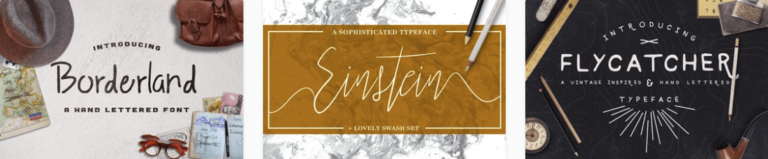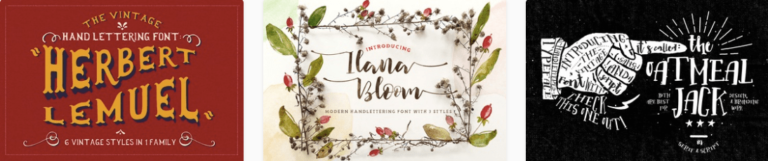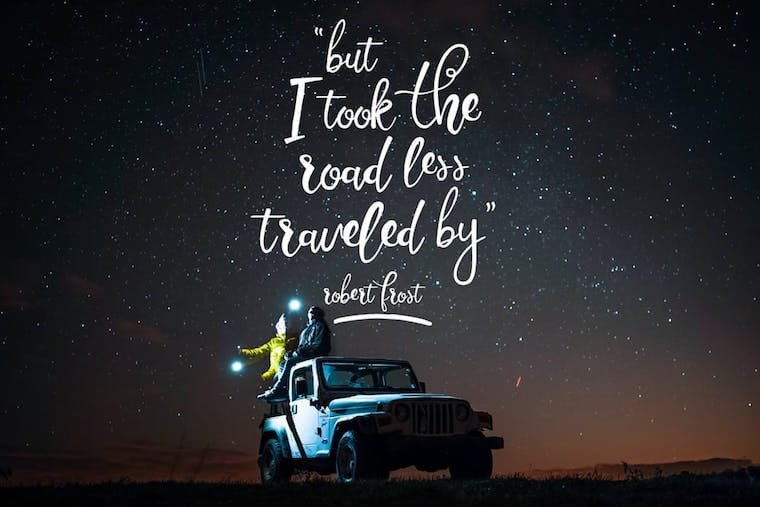
Designers Pick Their Favorite Handwritten Fonts
Check out some of the favorite handwritten fonts among our designers on Envato Elements.
We asked two designers to select their favourite handwritten fonts.
Deasy, a designer who creates fonts as August10 on Elements, has been working as a designer for 8 years. In her early years, she worked for several agencies that she began to realize, working there had taken lots of her, most of all: time. She tried to find a better career opportunity where she could have her freedom but still, able to create design or at least in design path.
Being a contributor for Envato, she is able to make all sorts of good-looking designs that are used by many customers around the world (and finally, she has lots of time!). Not only that, she also notices that font design has become one of the most popular things. For her, it’s good to know that her “handwriting” can be used as an element to create something bigger. From that moment on, she continues making font that so far she has 28 fonts & still counting.
Here’s what Deasy had to say about their favorite styles across Envato Elements:
“I like script fonts because they are original and it’s purely handmade (of course, after finish drawing, we computerize it). Of all 20 pages of script font in Envato Elements, there are some I like because of varied reasons.
I have to admit that these are well executed, both the fonts and the presentation! As a designer, these fonts (along with their preview images) do give me inspiration in making new fonts; not to make the same ones, but to make a new one based on the style.
But as a user, looking at these fonts I imagine there are tons of things I can make. Many of them comes with features such as Bite Chalk. There are several fonts in 1 family that I can combine to create this and that. Many of them, too, comes with brush stroke and or texture that will make my works look natural (it’s as if I make the writing by my hand, instead of some computer font). Actually, these are the things that I’m looking for whenever I look for fonts to create design.
One last thing is the presentation. These designers made some great works by making a themed preview, such as: Little Wonder, Asphalts and Carosello. They have the color consistency and images that match each other which give a strong impression to the fonts themselves (and makes me want to download them!).”
1. Little Wonder
Little Wonder font
simonok
2. Asphalts
Asphalts Typeface
TheBrandedQuotes
3. Parlour & Bite Chalk
Parlour Sans
hustlesupplyco
BiteChalk Typeface + extras
jiwstudio
4. Carosello
Carosello
UnioCS
5. Experiment
Experiment Brush Script
dhanstudio
6. Rainy Days & Dreamlight
Rainy Days – a Playful typeface
AnnaIvanir
Dreamlight Script
queentype
7. Boomshell
Boomshell Brush Font
dhanstudio
We asked two designers on Envato Elements to tell us about typography and font styles they’re into this season.
Michael Gilliam, a designer on Envato Elements, to share their favorite font styles. Michael’s own design style tends towards handwritten, detailed fonts:
Here’s what they had to say when we asked him about their design style:
“What’s not to love about handwritten fonts?! The bouncy baselines, the fat-to-thin brush strokes, the gritty textures; these perfect little imperfections all lend themselves to making any design stand out. For me, they’ve become a game changer. I’m now able to make a digitally designed pieces feel authentically hand crafted. Brilliant!”
Here’s 10 fonts handpicked by Michael for your design inspiration:
1. Oatmeal Jack
Oatmeal Jack
august10
2. Parlour
Parlour
hustlesupplyco
3.  Catalina Avalon